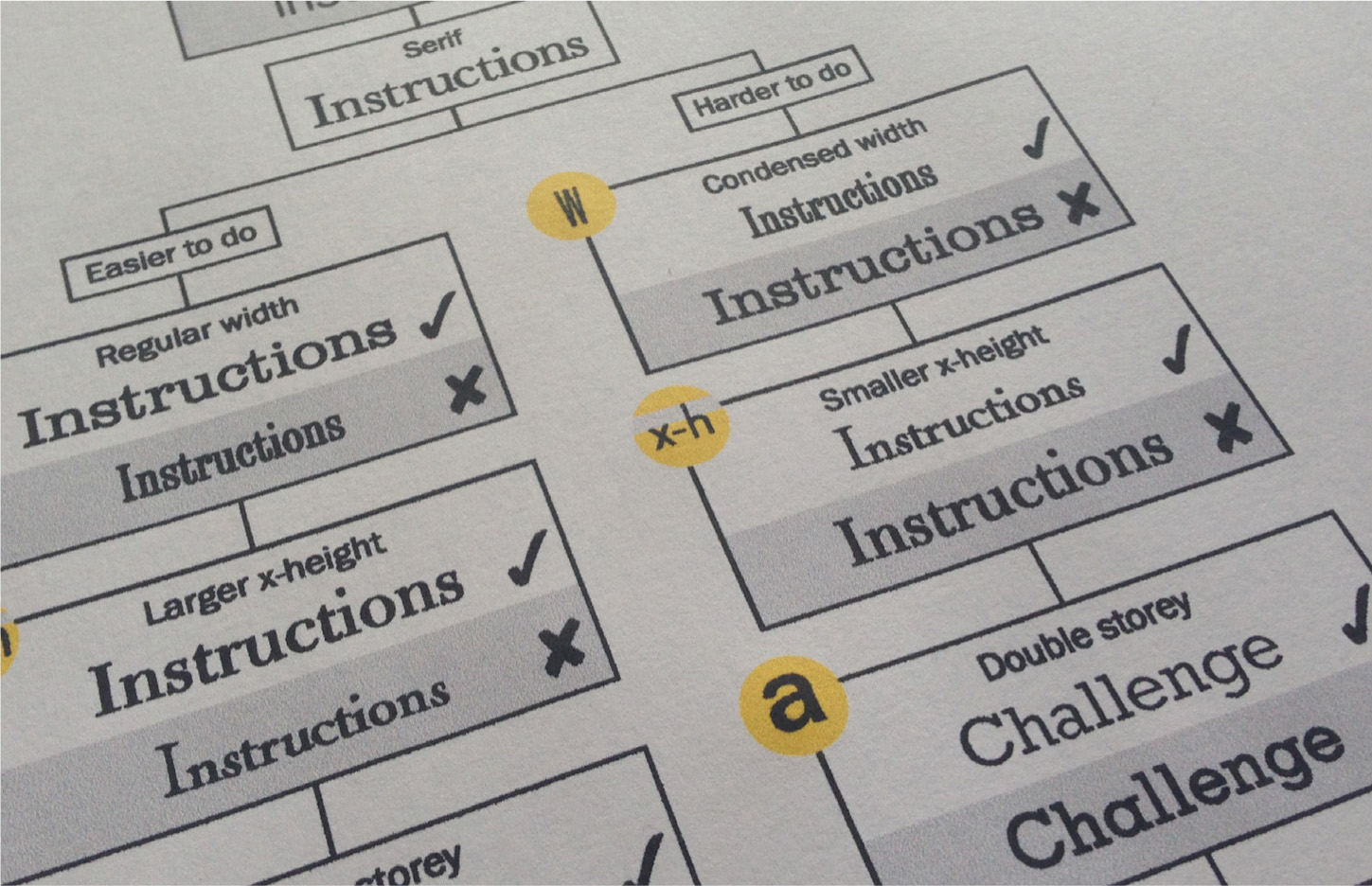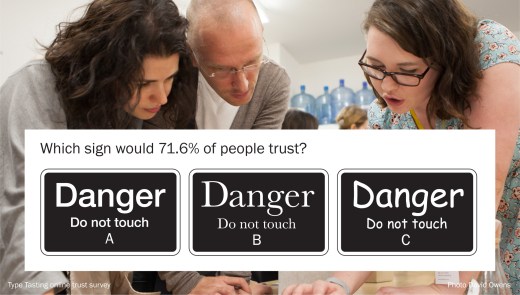
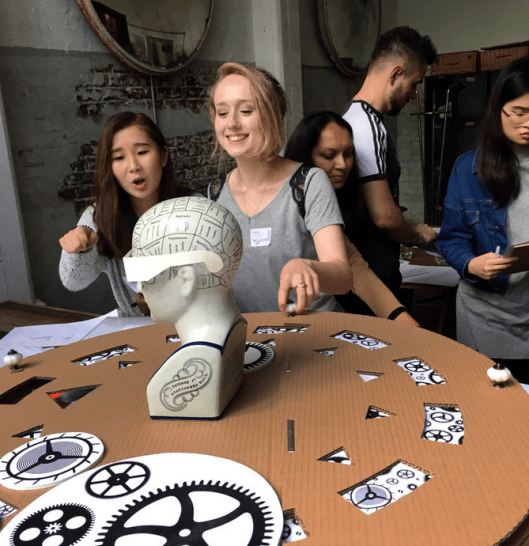
What’s Your Type?
Learn how to choose fonts with confidence in an intensive and fun one-hour workshop. Take part in experiments as you create your own set of tasting notes based on latest research results. Become part of the discovery process as we prove that a typeface can transform the meaning of your words—that it’s not just what you say it’s the way that you say it.
• LEARN a proven process for choosing a typeface.
• FIND OUT why different fonts are suitable for different occasions.
• UNDERSTAND how a font can look cheap, expensive, calm, angry or even alter your experiences.
• CREATE your own ‘tasting notes’ to refer to when choosing fonts.
• TAKE HOME tasting notes, certificate, spot prizes and a type sampler.
Workshops are led by Why Fonts Matter author and Type Tasting founder Sarah Hyndman who is involved in extensive research quantifying how we respond to different typefaces.
“Fantastic; thought provoking, and what’s more — fun!” Dan
“I had never understood why people hold such a passion for typography. Now I see why!” Jessica
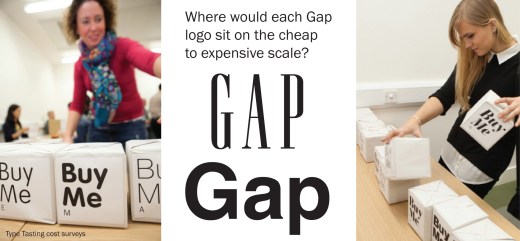
This workshop is ideal for students, designers who would like a refresher based on research, startups branding their business, and the typographically curious.
“Left me more confident in my awareness of typography and it’s vast importance within design. It was fun and an incredibly thought provoking session with an excellent variety of group activities to consider how typography can correlate to our different senses, whether we are conscious of it or not. I am continuing to refer back to my tasting notes. It has opened my eyes to typography and was a fantastic experience” Chantelle
Take part in the research
During the workshop you will explore how your choice of typeface combines with the words to convey additional meaning. Are some typefaces associated with cheaper and more expensive products? Which type styles suggest an activity might be easier or harder to do? Can the choice of typeface convey that an article is better researched?
In the workshop you will take part in experiments that answer these questions. You will compare your answers to the results of Type Tasting surveys.
Throughout the workshop you will create your own set of tasting notes that you can refer to in future to enable you to choose type with confidence.
We are all type consumers and letterforms are woven into the rituals of our lives through the packaging on the products that we use every day. At the time we may pay little attention as the logos and product names are so familiar that we reach for them almost unconsciously. A trip to the Museum of Brands reveals the trends and fashions in type on packaging decade by decade.
At the opposite end of the process is the designer, who must be aware both of the nonverbal information being communicated by the typeface, and the intricacies of skilful typesetting.
“Illuminating morning learning about personalities of type” Rosie
“Thanks for a Fantastic workshop! Helvetica #typeselfie was pretty accurate” Alex
“Taught me to think more about the impact of font choice on the consumer” Lee